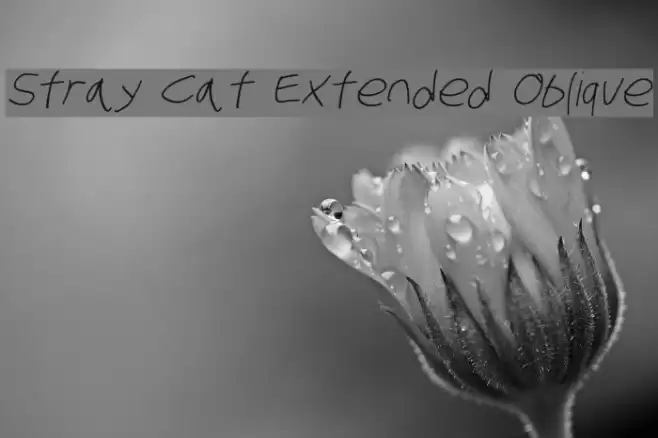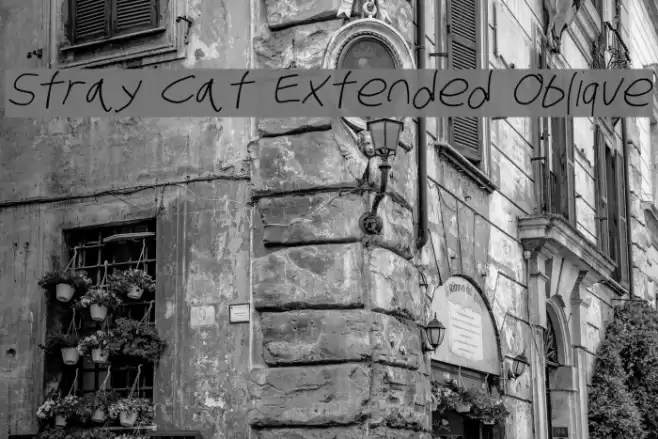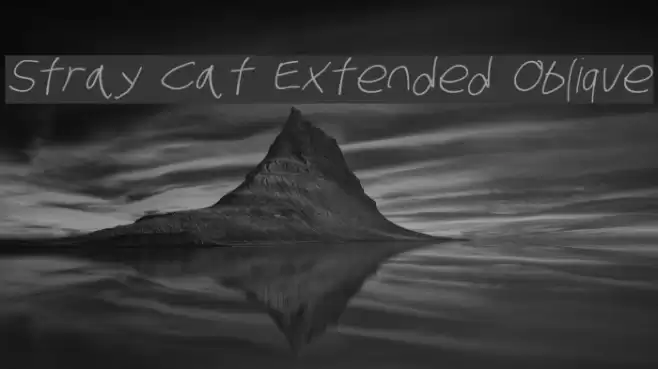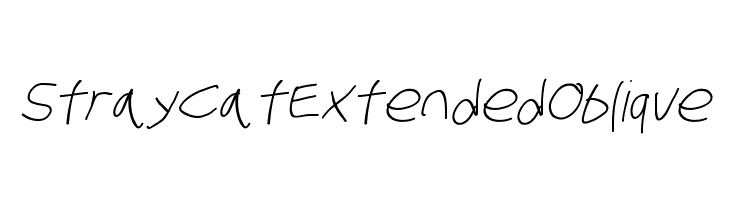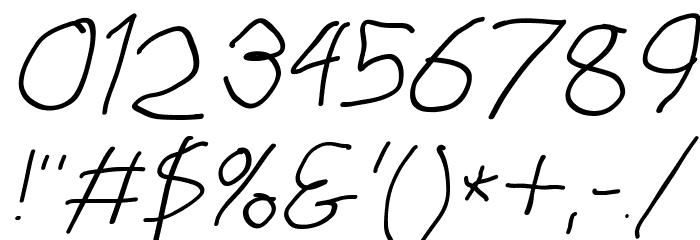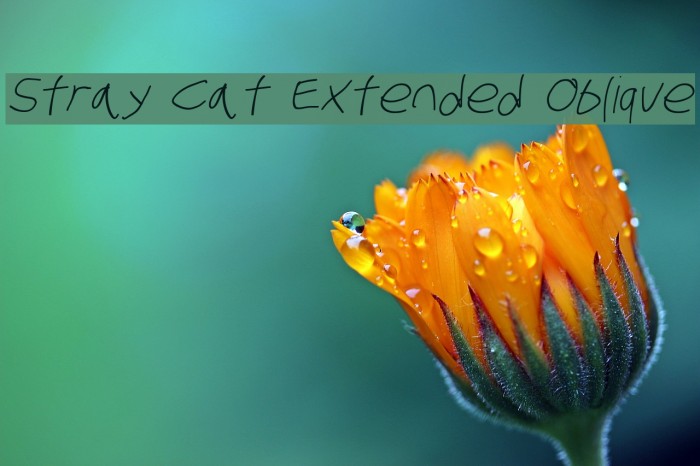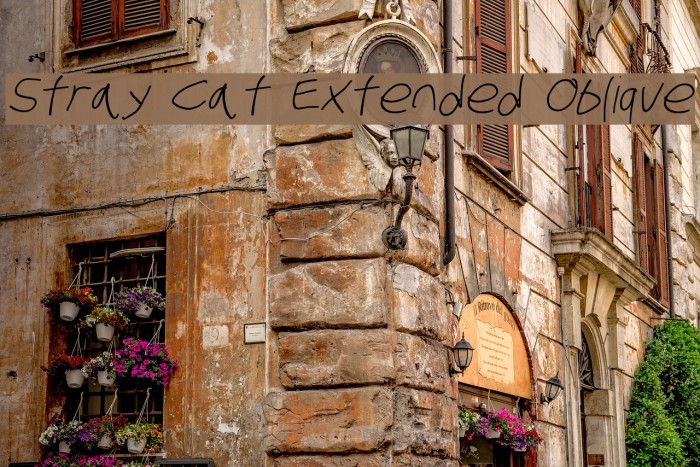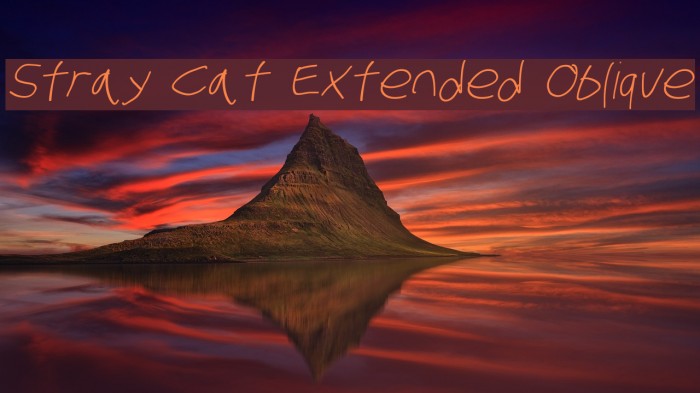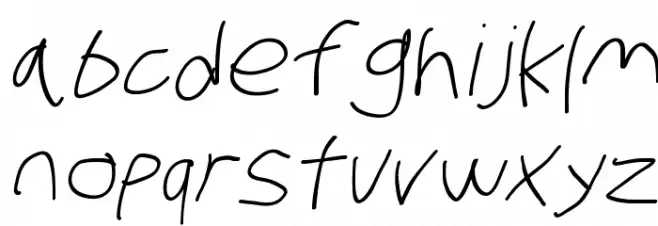
Stray Cat Extended Oblique Font
Stray Cat Extended Oblique Description
This font features a playful and casual handwritten style, characterized by its extended and oblique letterforms. The strokes are uneven, giving it a natural and organic feel, reminiscent of quick, informal handwriting. The uppercase and lowercase letters maintain a consistent style, with a slight slant that adds dynamism and movement. The numerals and special characters follow the same aesthetic, ensuring a cohesive look across all text elements. The overall appearance is approachable and friendly, making it suitable for projects that require a personal touch.
A playful, handwritten font with extended and oblique letterforms from Uncategorized fonts.
- Proposed Projects: Ideal for greeting cards, personal blogs, casual branding, and children's book illustrations.
- Width: Expanded
- Overall Style: Casual
- Use Case: Logos, Headlines, Informal Text